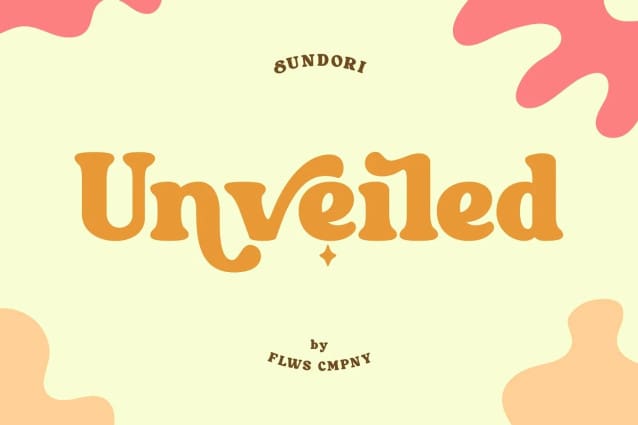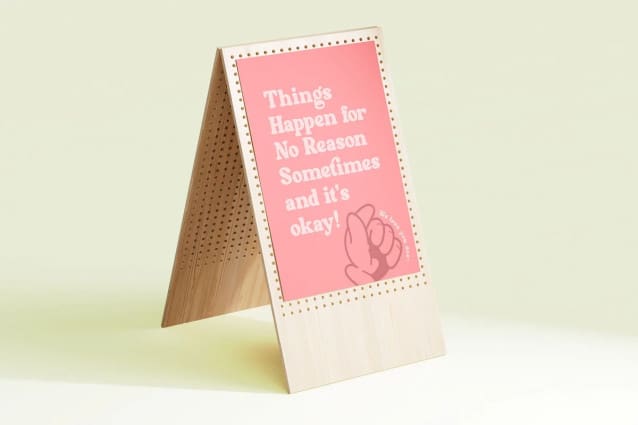
Sundori Retro Font
Sundori Retro Font – A Serif Retro Font with Hand-Drawn Charm. Embark on a journey through time and artistic expression with “Sundori,” a serif retro font that marries the elegance of bygone eras with the warmth of hand-drawn authenticity.
Sundori Retro Font has of two distinctive styles – Regular and Fun — adorned with patterns in fun styles that add an extra layer of delight to your designs.
This serif typeface is more than letters on a page; it’s a journey into a world where every curve and line tells a story of both nostalgia and innovation.